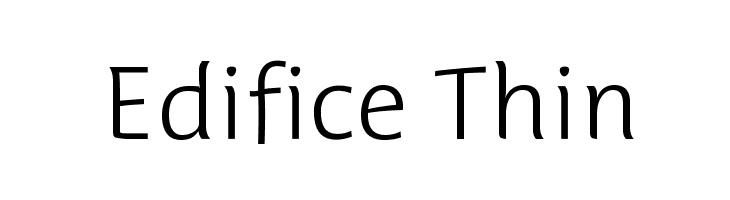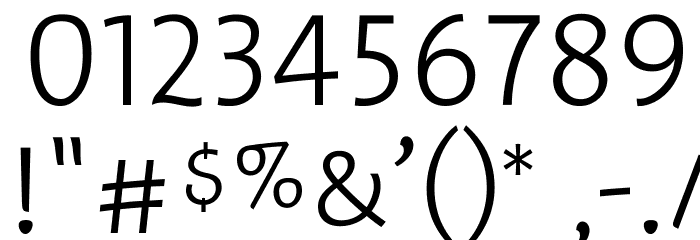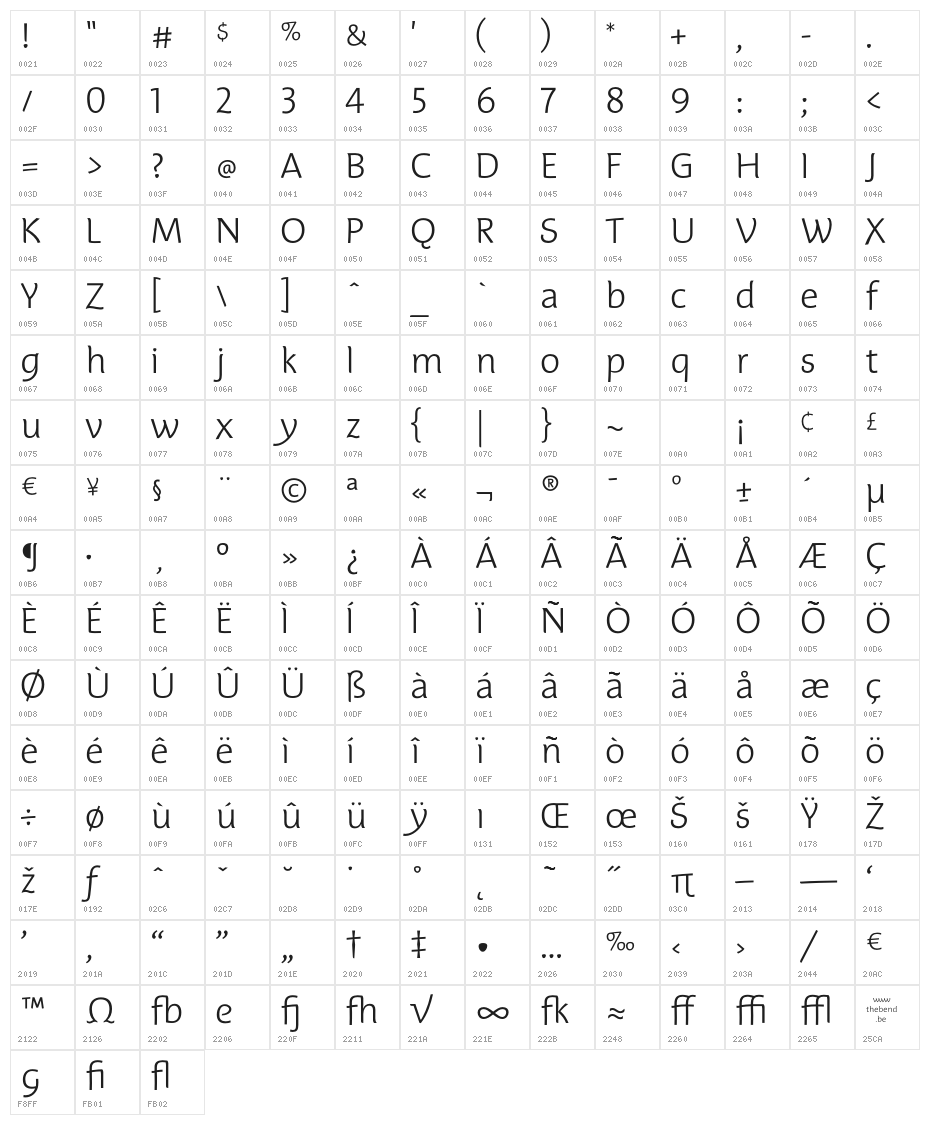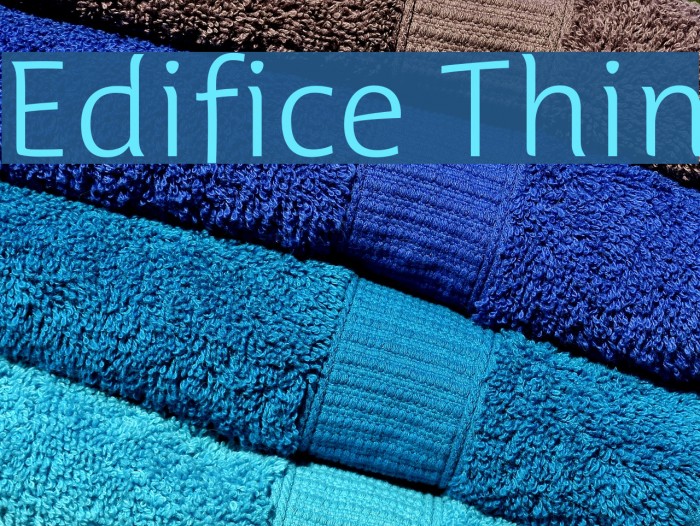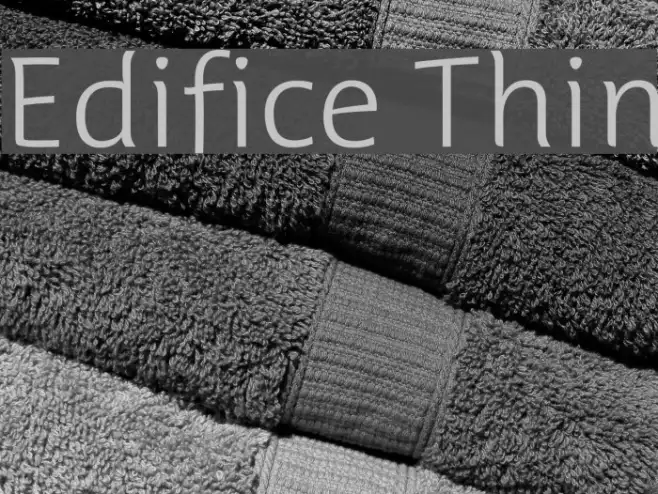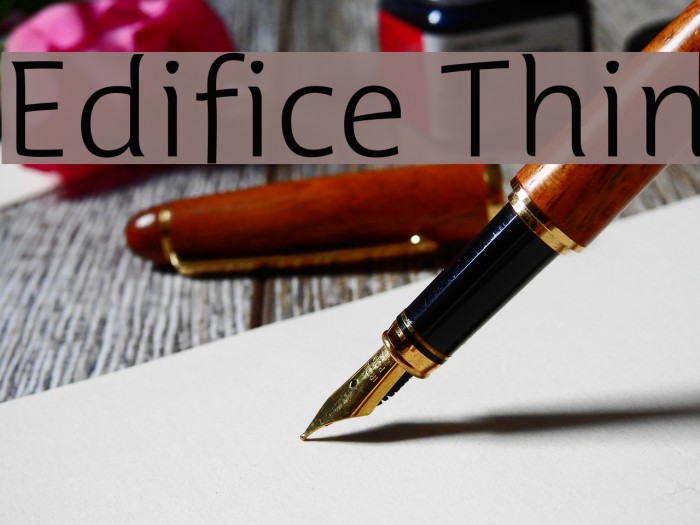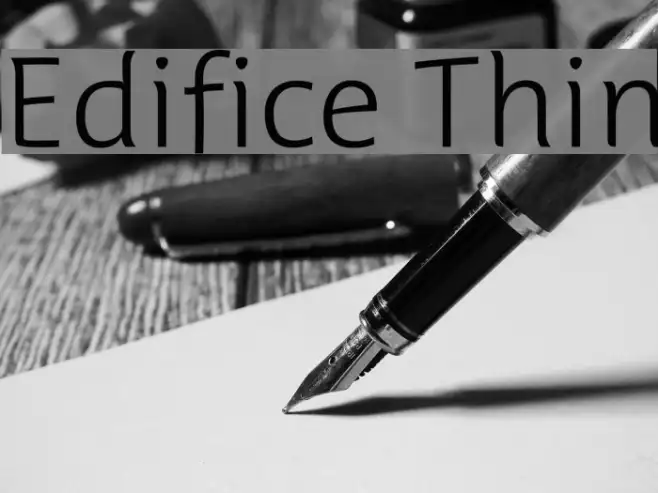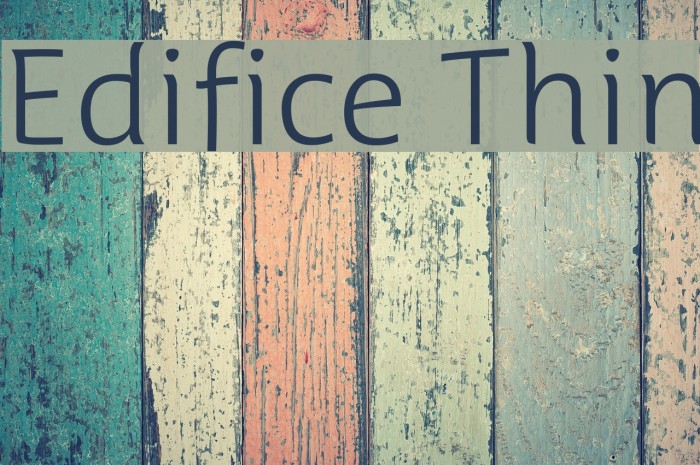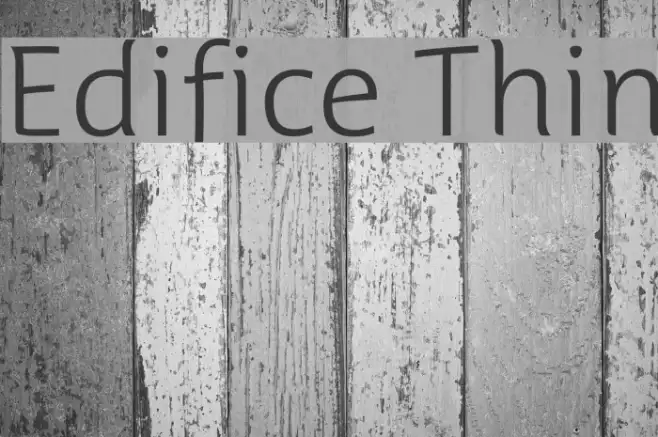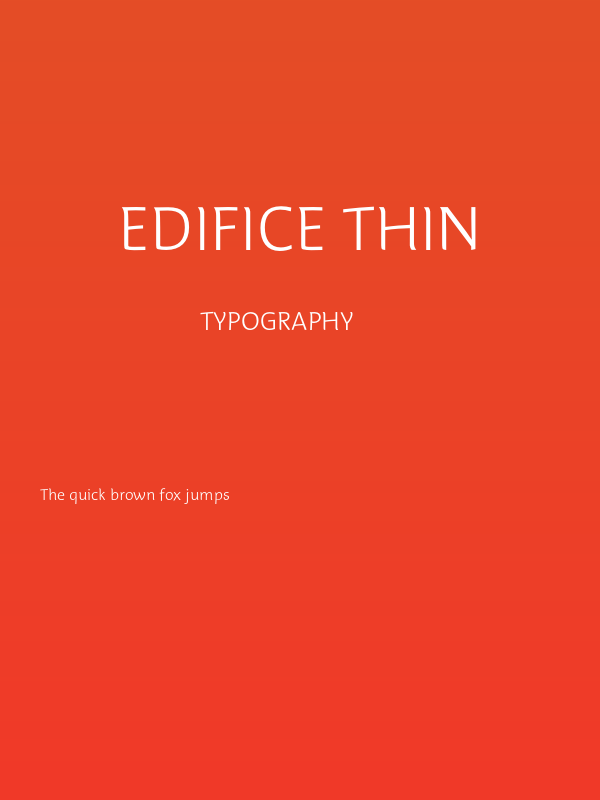
Edifice Thin Font
Edifice Thin Description
This font features a sleek and modern design with thin, elegant strokes that convey a sense of sophistication and clarity. The characters are well-proportioned, with a slight curvature that adds a touch of softness to the overall appearance. The uppercase letters maintain a consistent height, while the lowercase letters are slightly smaller, providing a balanced and harmonious look. The numerals are clear and easy to read, making them suitable for various applications. Special characters are distinct and well-integrated into the font's style, ensuring versatility in usage.
| Proposed Projects | Ideal for branding, editorial design, digital interfaces, and minimalist design projects. |